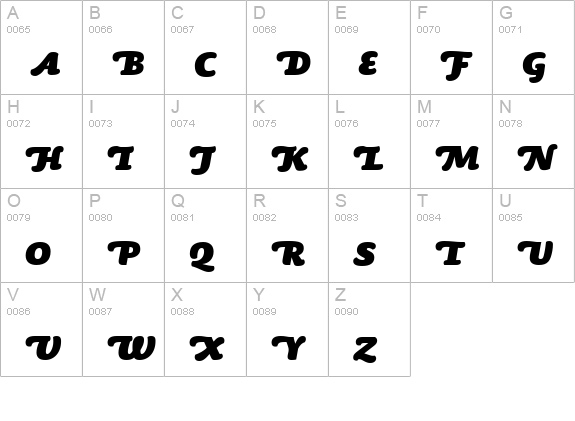
Sauna-BlackItalicSwash font is a captivating and elegant typeface that will add a touch of sophistication to any design project. With its unique and graceful swashes, this font is perfect for creating eye-catching headlines, logos, and branding materials. The free Sauna-BlackItalicSwash font is a versatile choice that can be used for both digital and print designs. Its bold and sleek appearance will make a statement and grab attention, while its delicate swashes add a touch of flair and elegance. Whether you're designing a wedding invitation, a magazine layout, or a website header, Sauna-BlackItalicSwash font will effortlessly elevate your design to the next level. Its smooth curves and graceful strokes create a harmonious balance that is pleasing to the eye. Thanks to its availability on FontsMarket.com, you can freely download and use the Sauna-BlackItalicSwash font in your projects. This allows you to explore its full potential and unleash your creativity without any limitations. So why wait? Enhance your designs with the mesmerizing Sauna-BlackItalicSwash font today and watch your creations come to life.